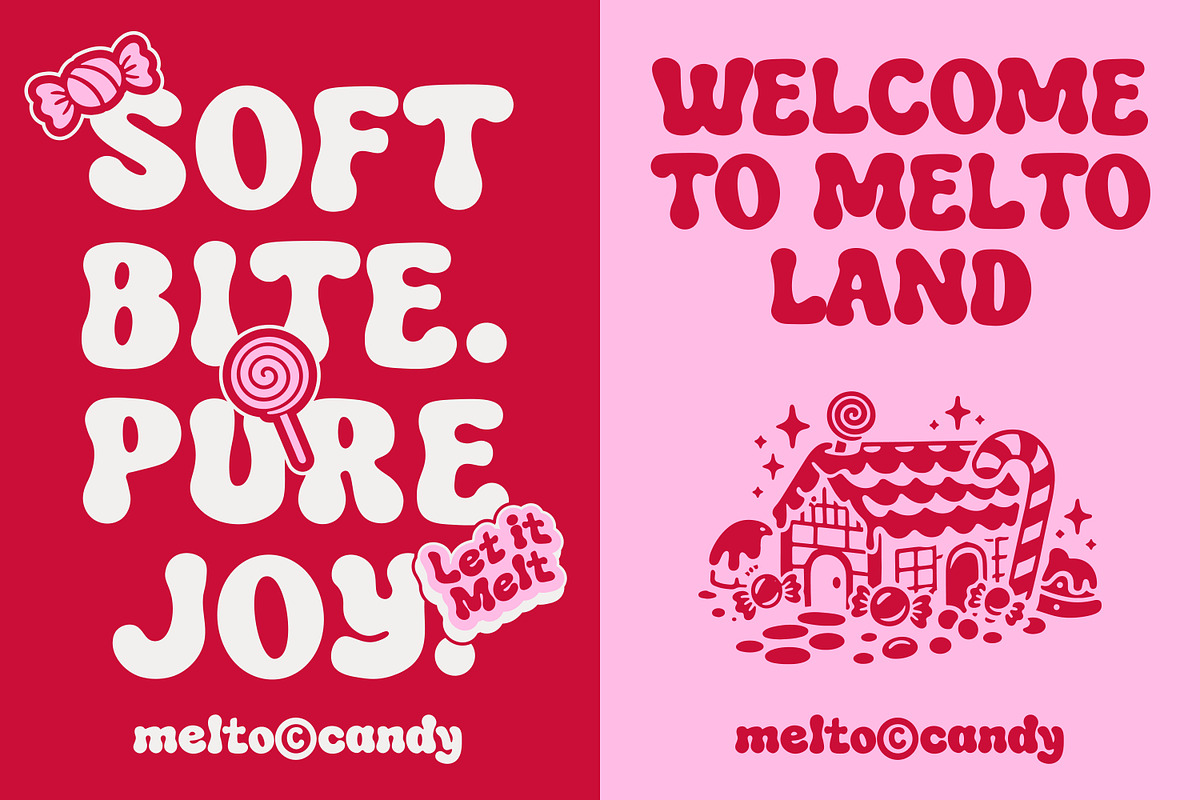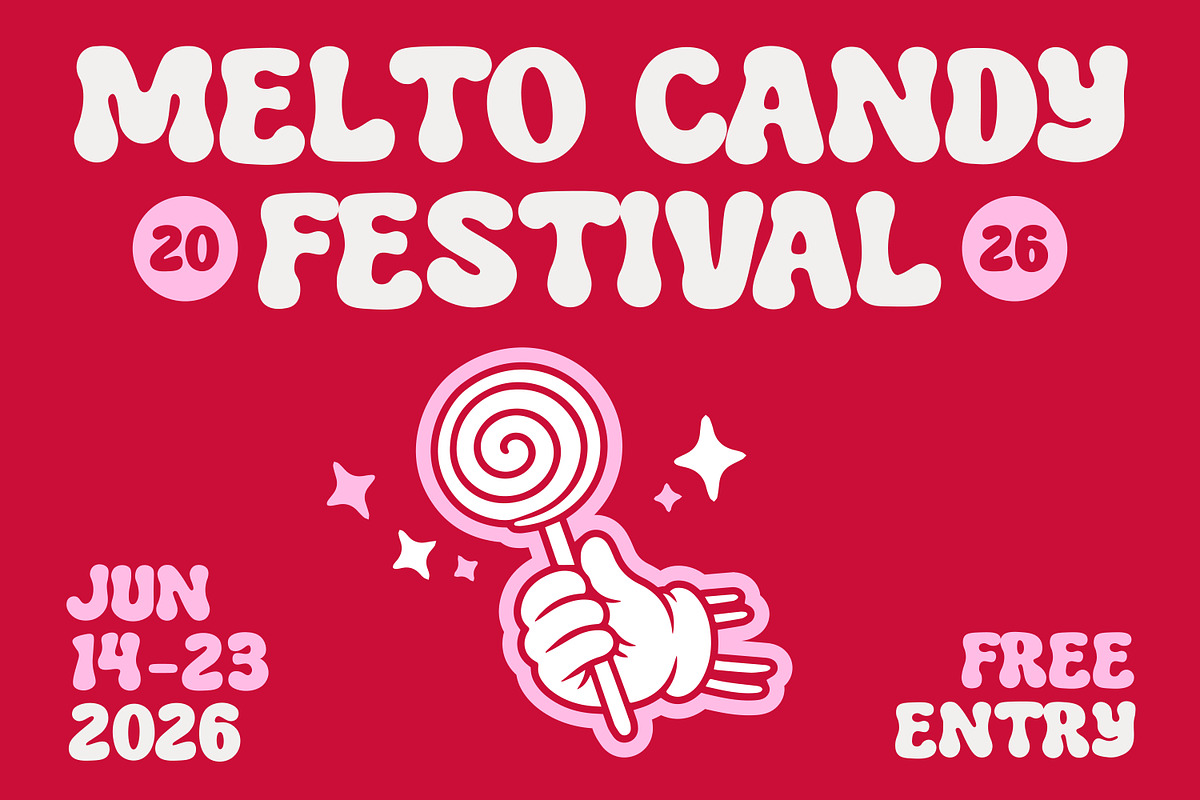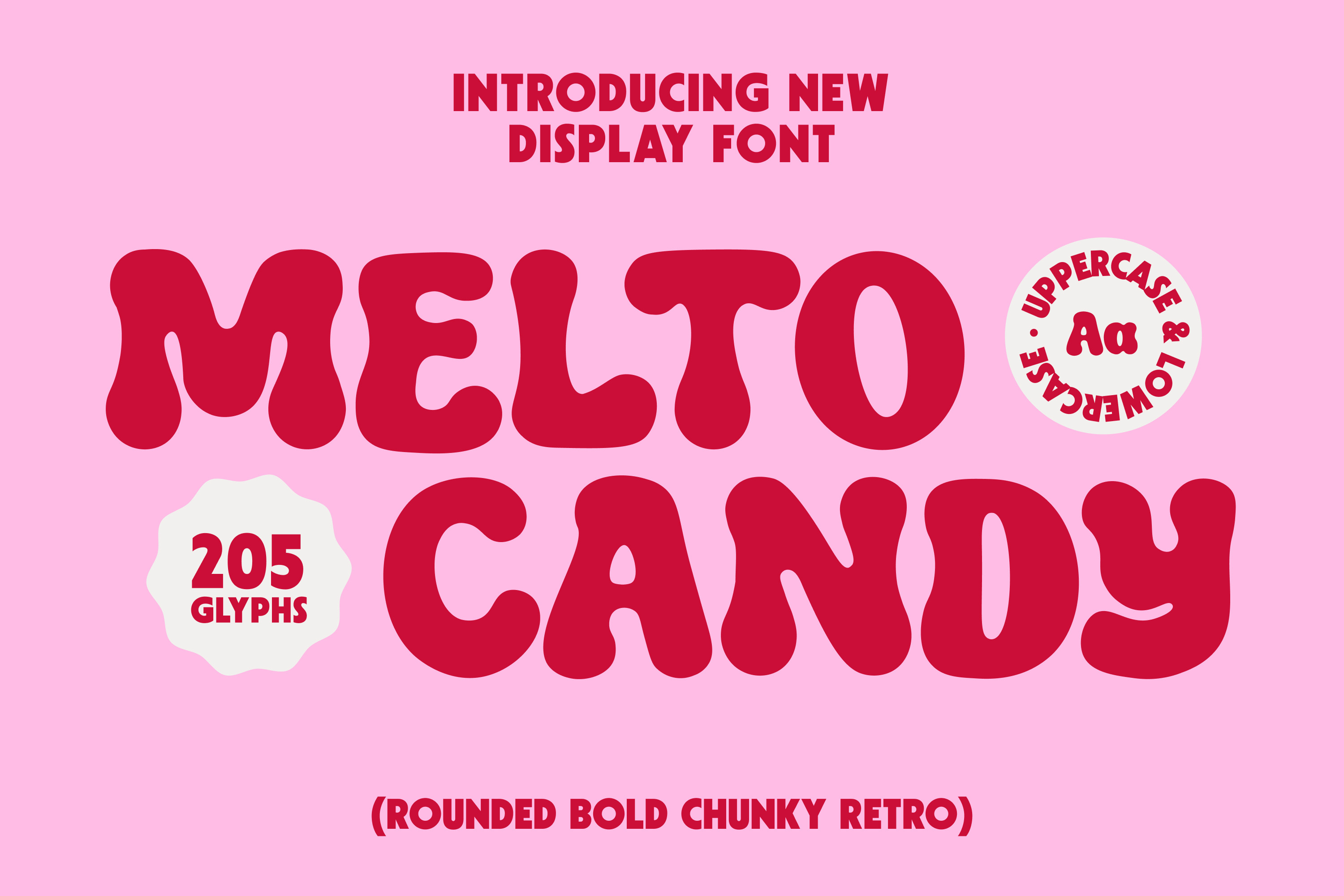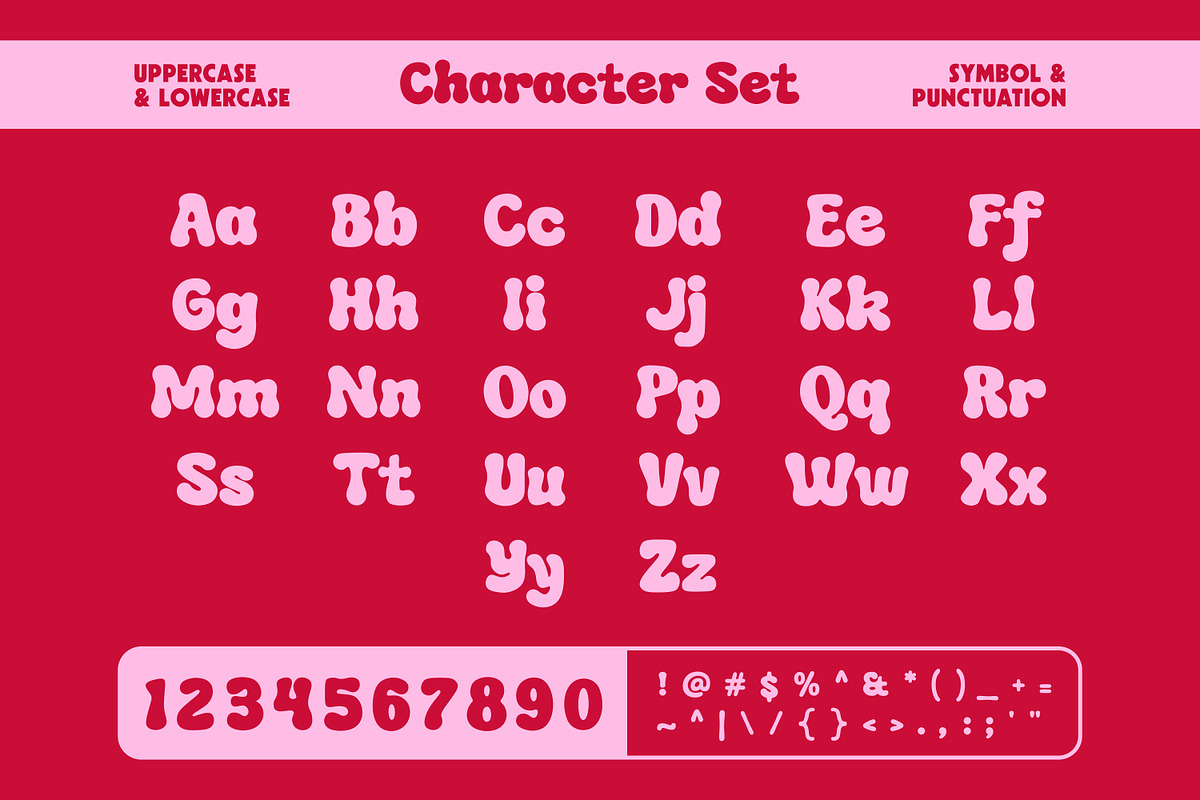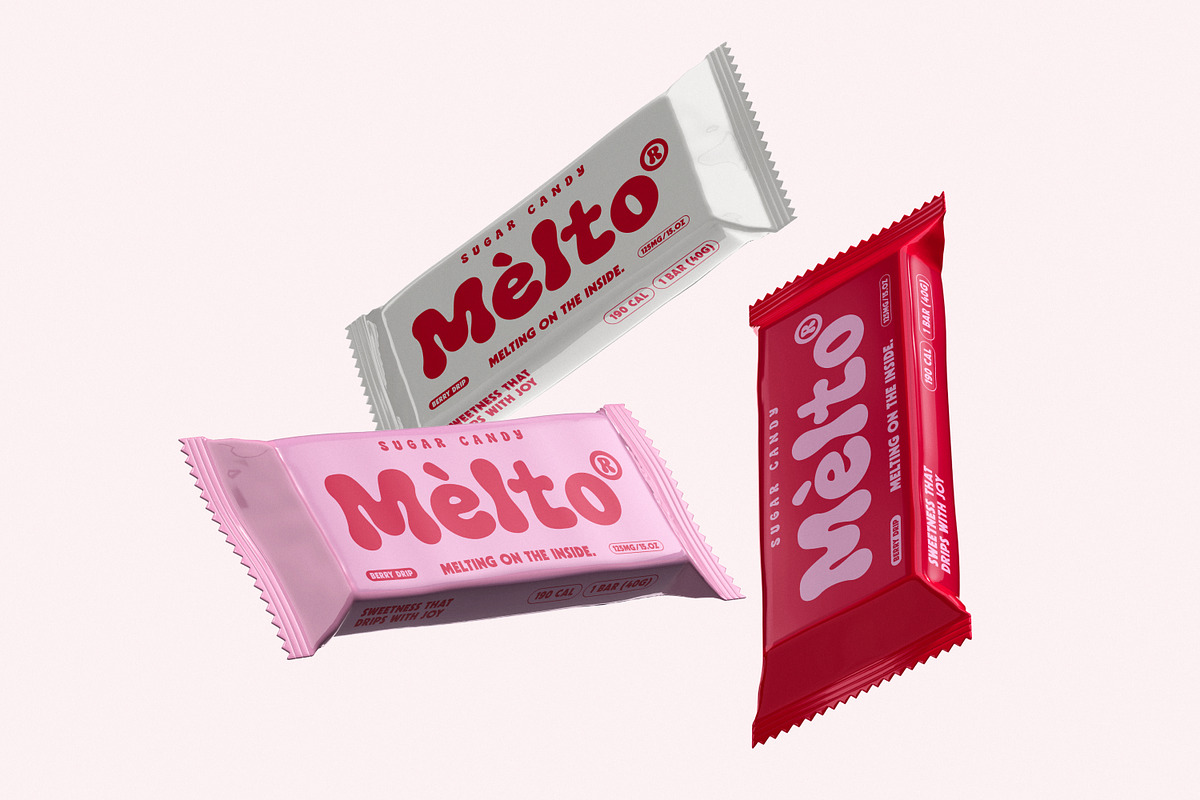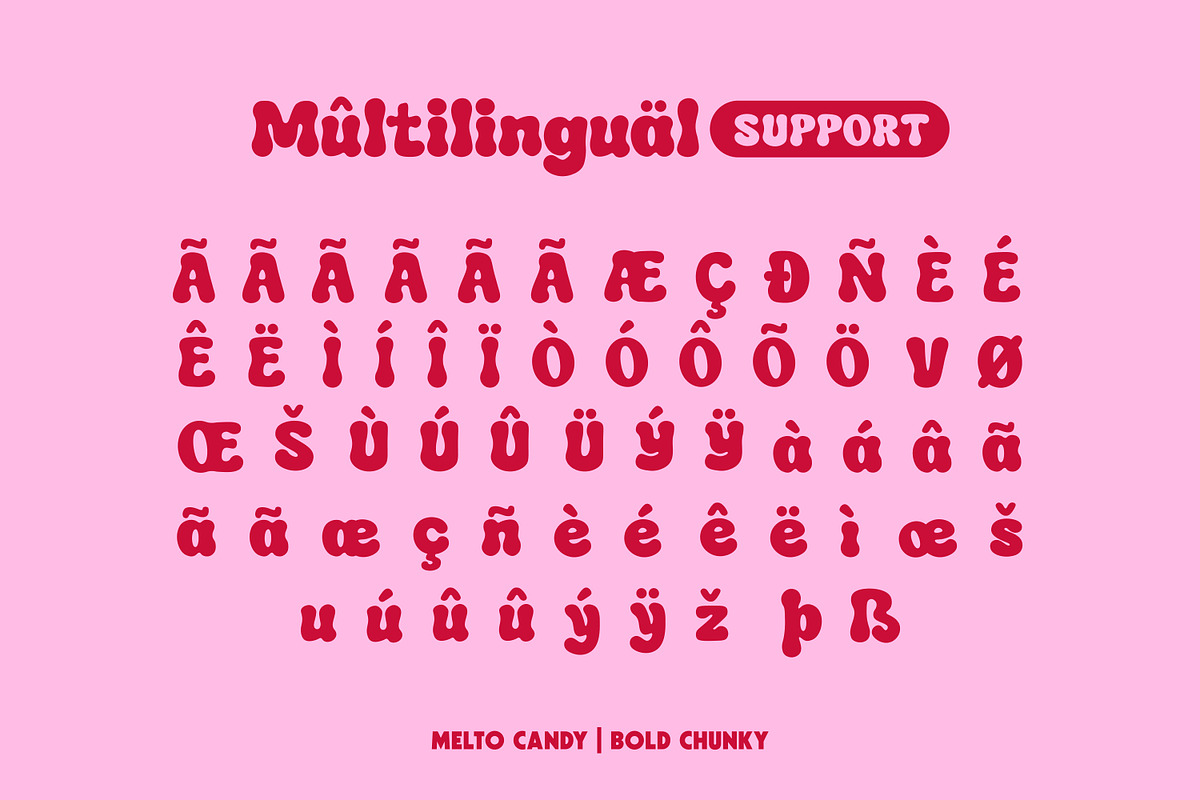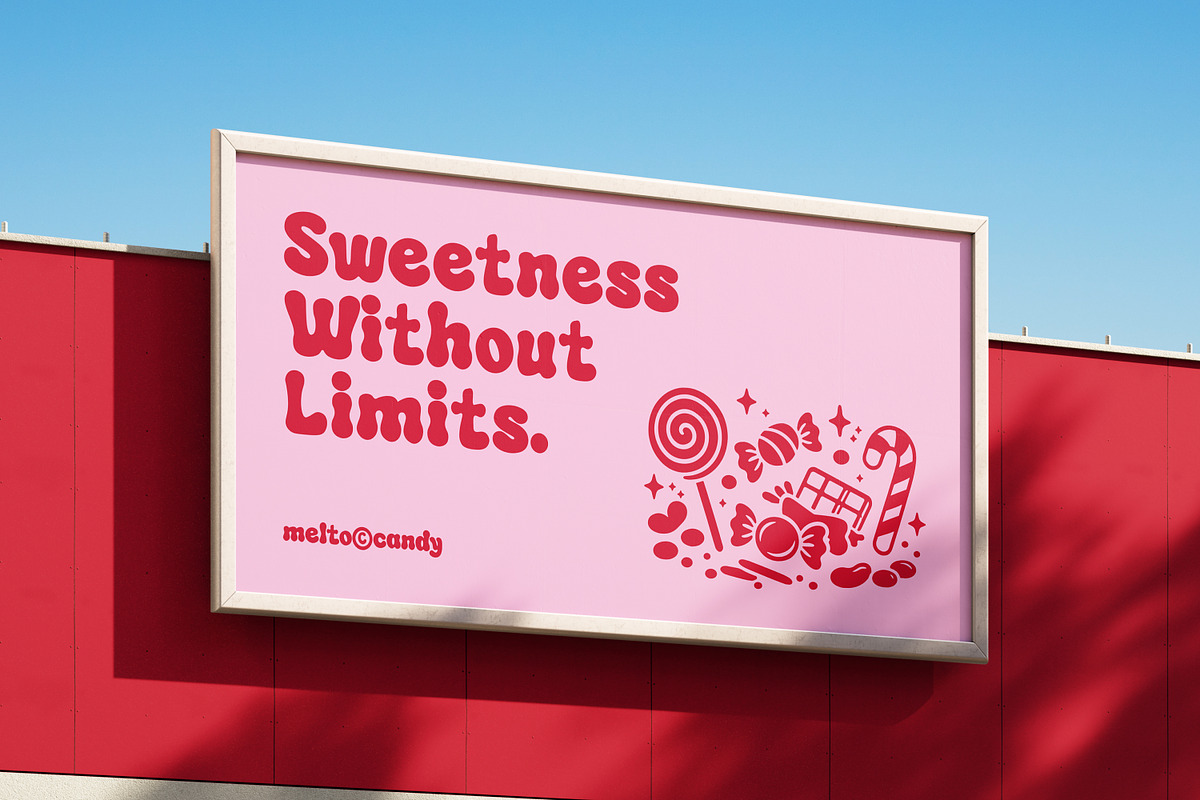
Melto Candy - Bold Display Font
Melto Candy is a bold, robust display font with sweet, cheerful letterforms and a fun personality. Designed to grab attention, it's perfect for branding, packaging, posters, kids' designs, logos, and social media graphics. With its smooth curves and candy-inspired style, Melto Candy adds a playful and joyful impact to any creative project.